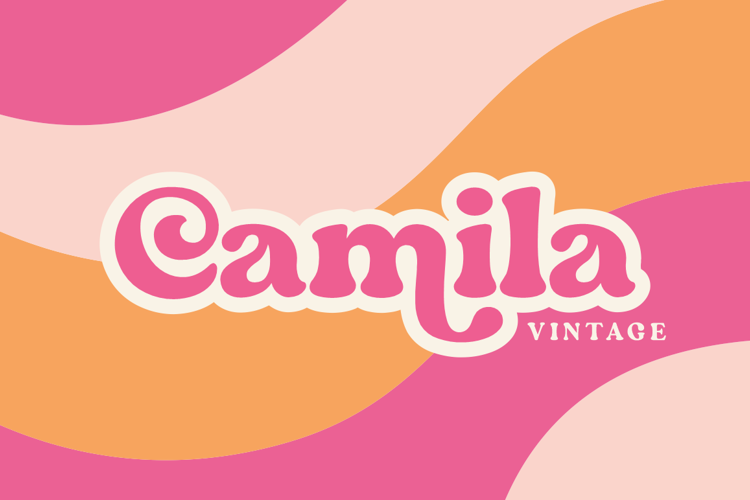
Camila Vintage Font
About Camila Vintage Font
Camila Vintage is a modern and elegant retro serif, complete with your OpenType feature access to many alternative fonts. It is designed to enhance any design you love. Camila Vintage has a full set of modern uppercase and lowercase letters, numerals, punctuation, and multilingual symbols.
This type of font is perfectly made to be applied especially in logos, headlines, signage, and the other various formal forms such as invitations, labels, logos, magazines, books, greeting/wedding cards, packaging, fashion, makeup, stationery, novels, labels or any advertising purpose.